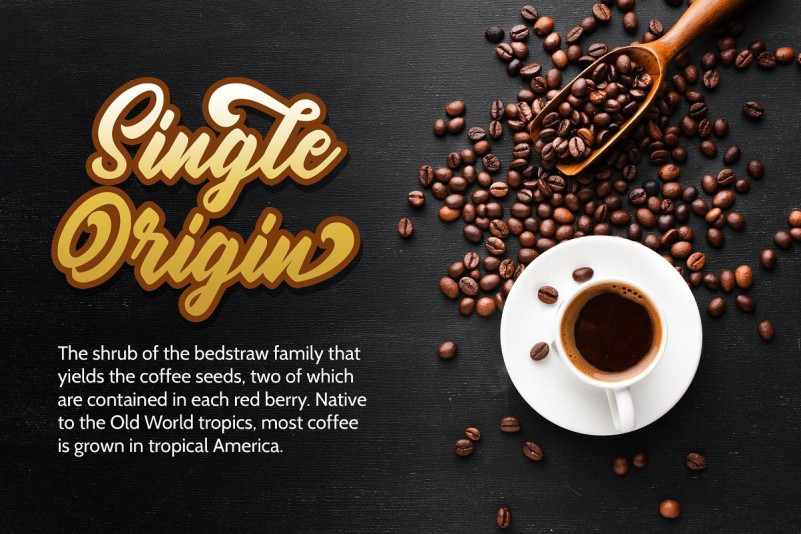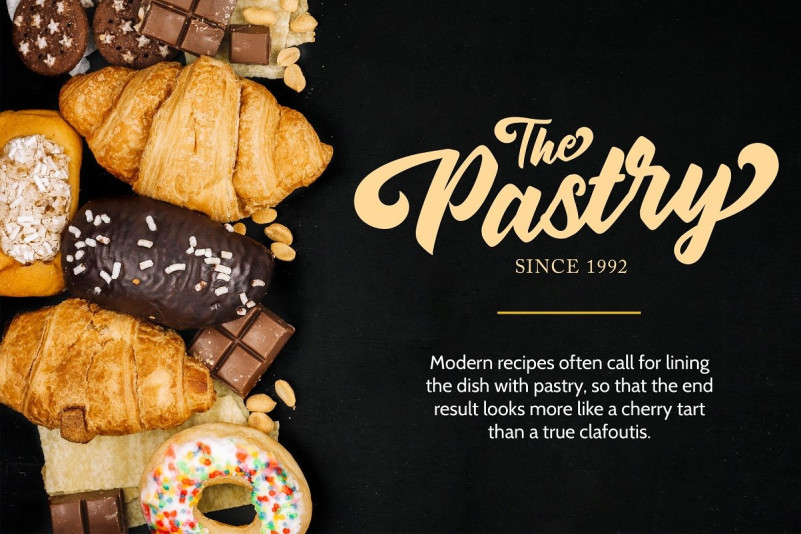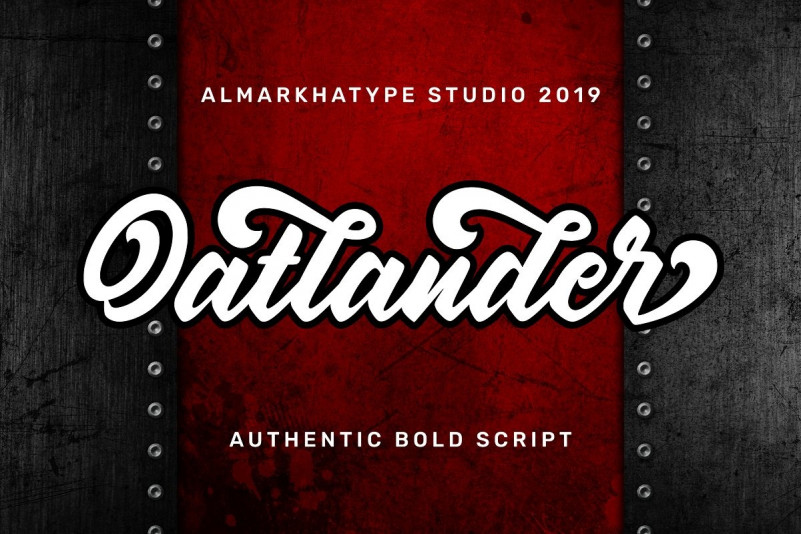
Oatlander Script Font
Introducing, Oatlander ! A bold script that will stands out from the crowd! Perfect to be used as logotype, badge and label! This has many opentype features like stylistic alternate,and support multi language.